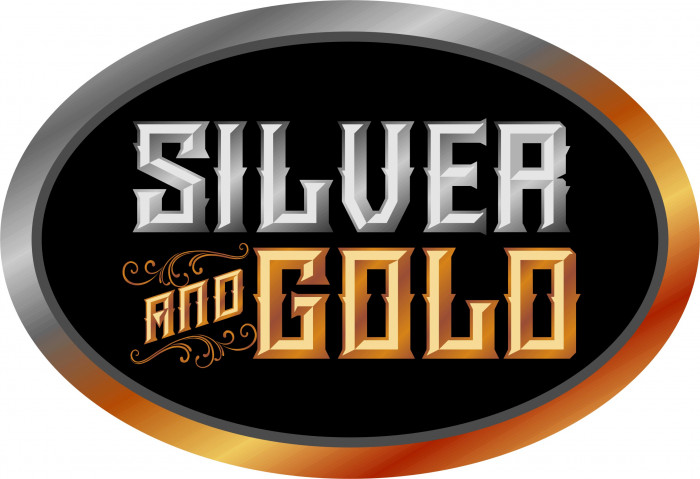
Pretty bevel!
Congratulations! FontStruct Staff have deemed your FontStruction worthy of special mention. “Silver&Gold” is now a Top Pick.
I really like the beveled effect with this. I love the sample too…
Very useful font
What an excellent beveled font!